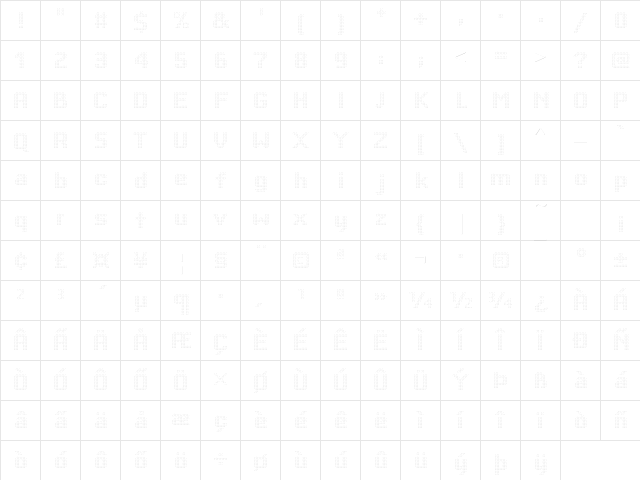
Complete Yardmaster Becker Only Shadow Regular glyph index. Displaying only characters natively supported by Yardmaster Becker Only Shadow Regular font.
Yardmaster Becker Only Shadow is built around its visual character rather than neutral utility - its distinctive forms are designed to make an impression at display sizes.
Font Pairing: Pair with a clean neutral sans-serif for body copy to let Yardmaster Becker Only Shadow's character lead without overwhelming the composition.
Pro Tip: Use Yardmaster Becker Only Shadow exclusively at display sizes - it was designed to be seen, not read at length. Let a neutral companion handle body copy.